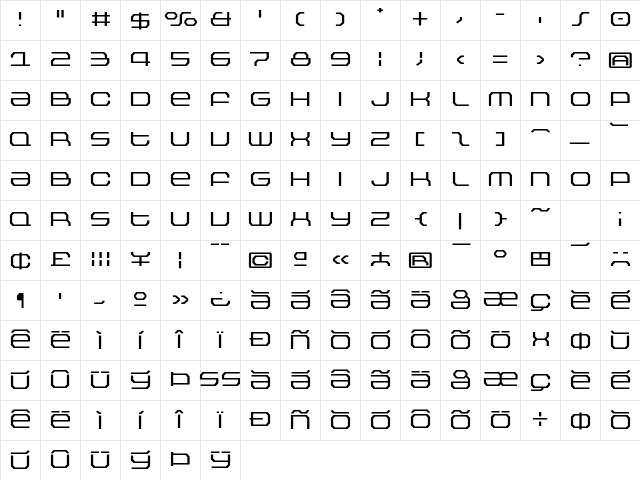
Complete Outlander Light glyph index. Displaying only characters natively supported by Outlander Light font.
Outlander is a composed and adaptable typeface that performs quietly and consistently across a wide range of design contexts. Its slender proportions lend an understated elegance to any composition.